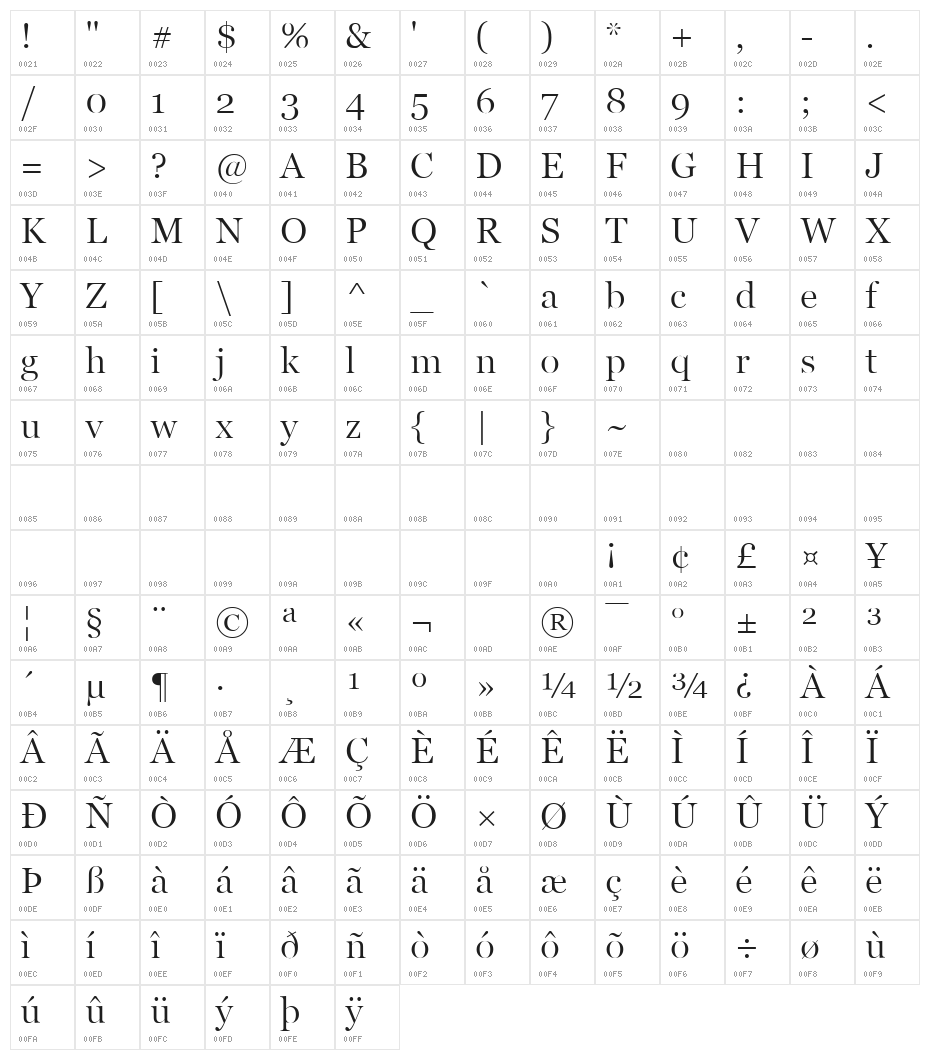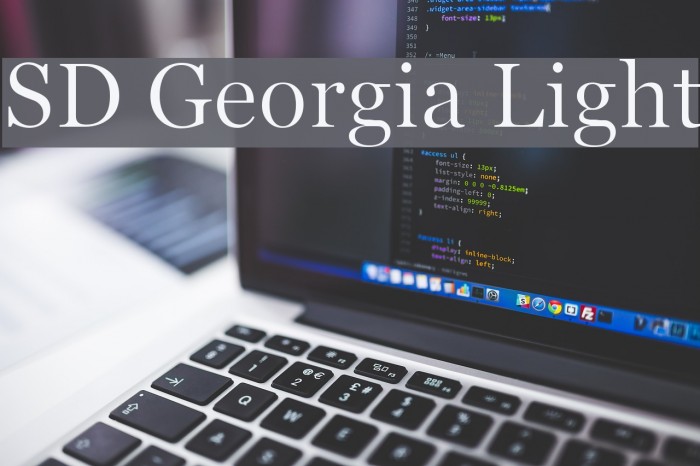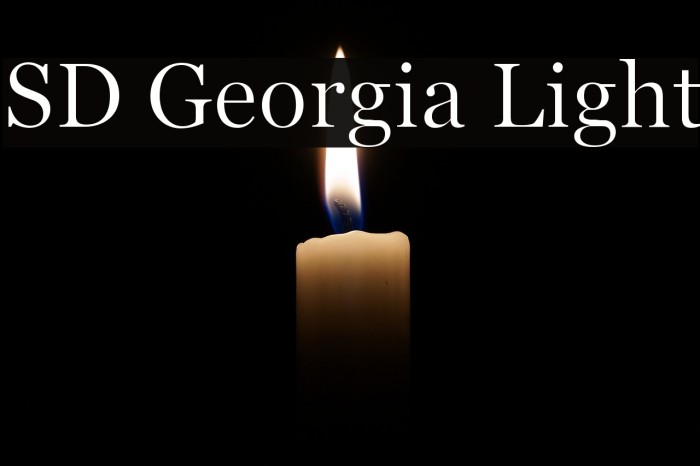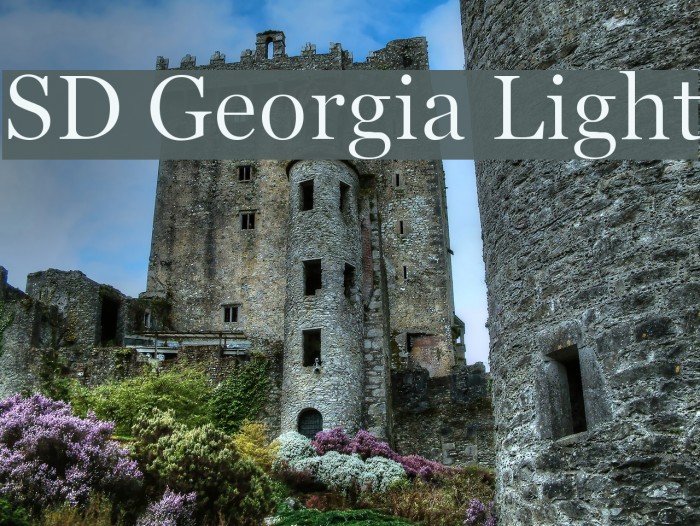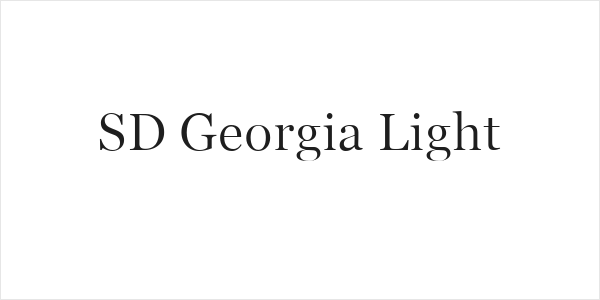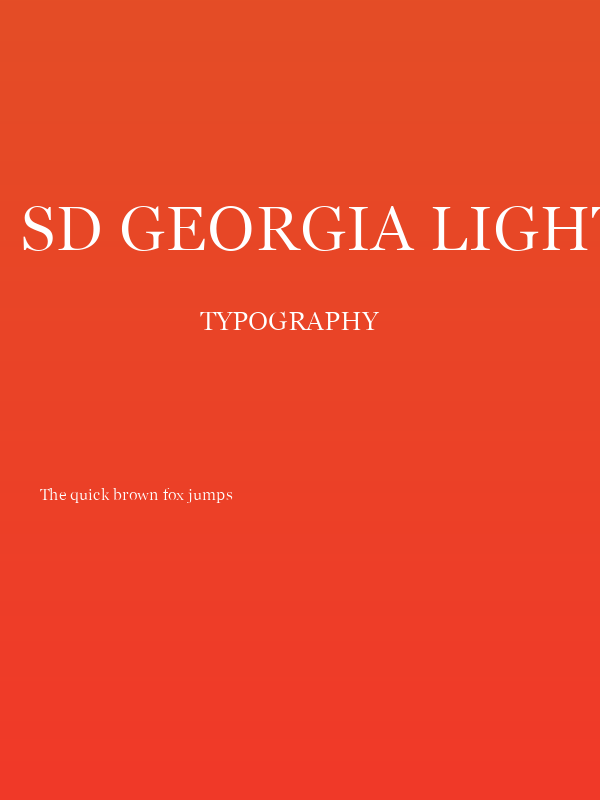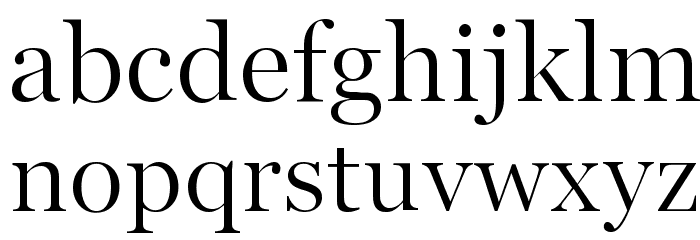
SD Georgia Light Font
SD Georgia Light Description
This font features a classic serif design with elegant and refined strokes. The characters exhibit a traditional style with slight variations in stroke width, providing a subtle contrast that enhances readability. The serifs are well-defined and add a touch of sophistication, making it suitable for formal and professional applications. The font maintains a balanced proportion between the height and width of the characters, ensuring clarity and legibility across different sizes. The numerals are distinct and align well with the overall aesthetic, while the special characters are crafted to complement the alphabetic characters seamlessly.
| Use Case | Body text, Headlines, Editorial design |
| Proposed Projects | Ideal for editorial design, book publishing, formal invitations, and corporate branding. |